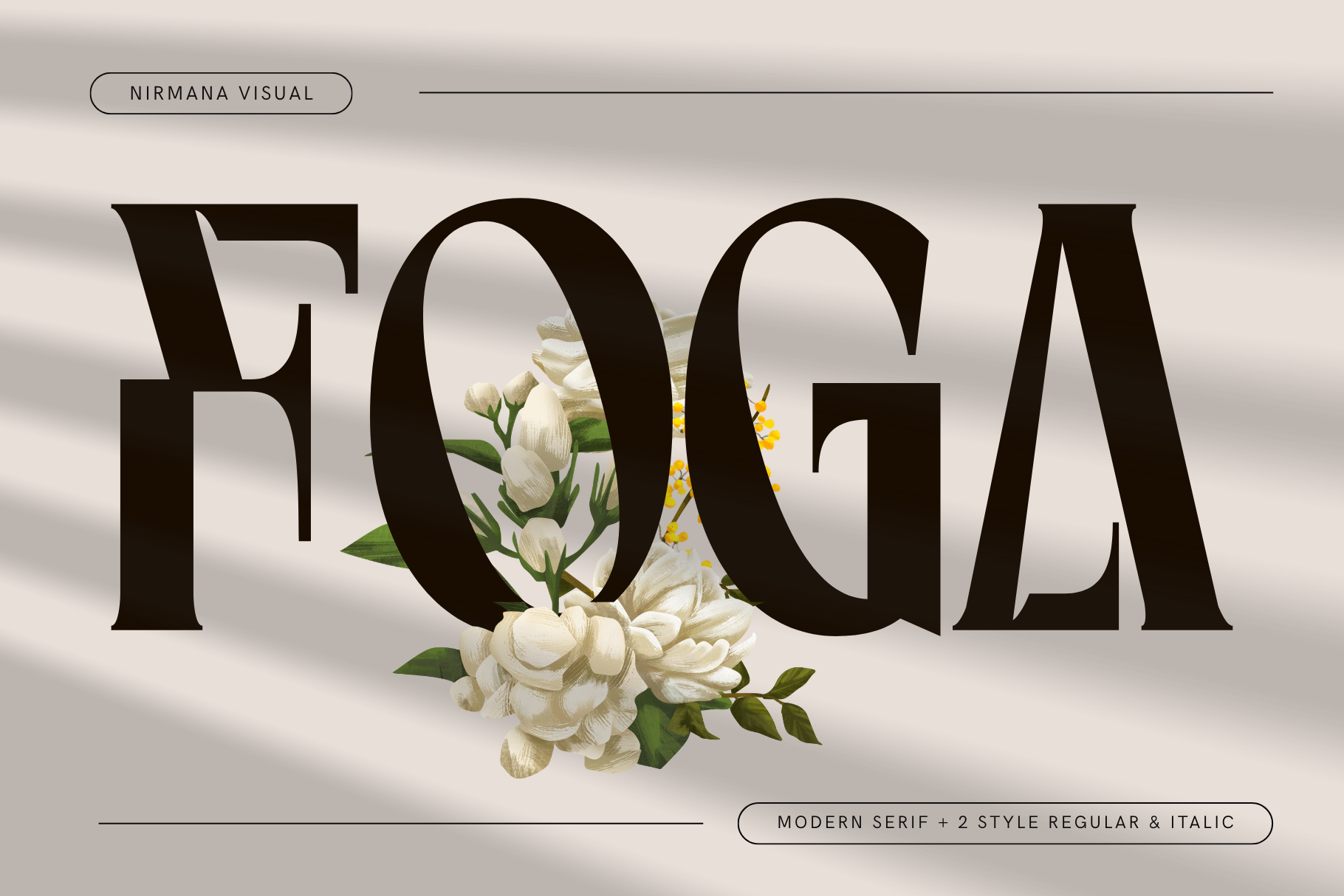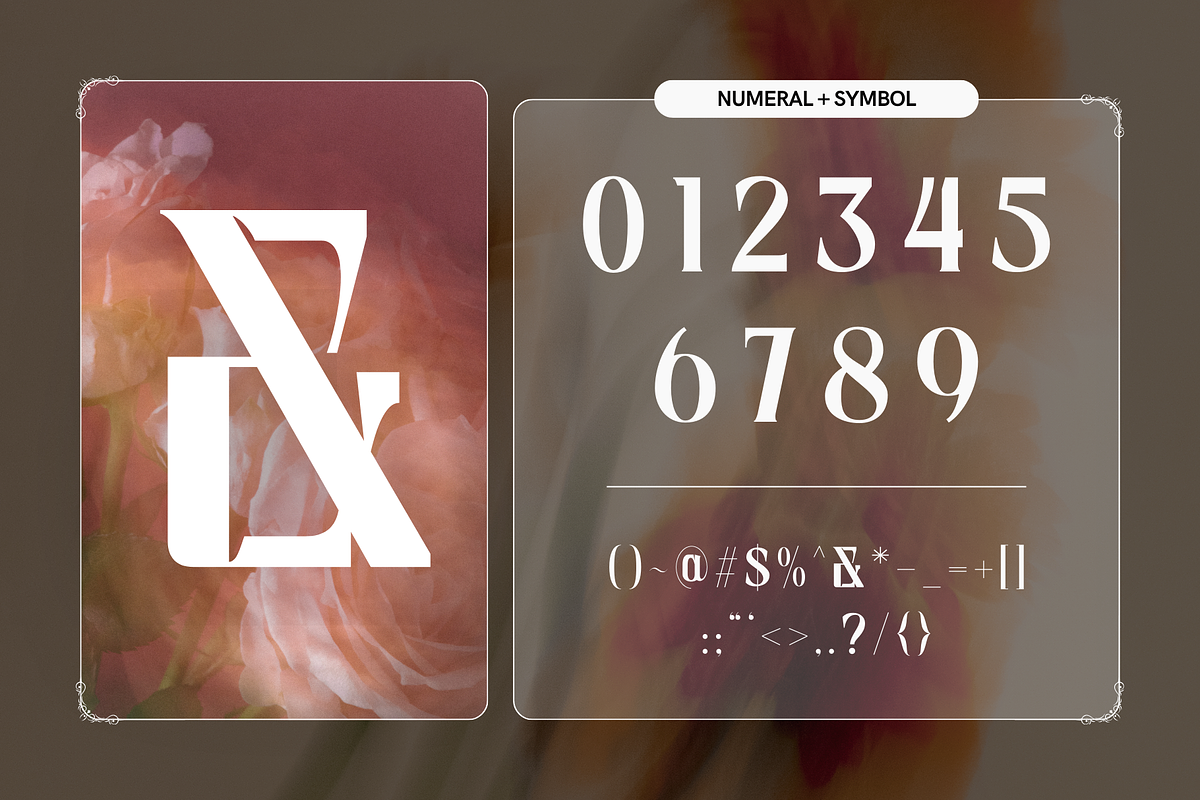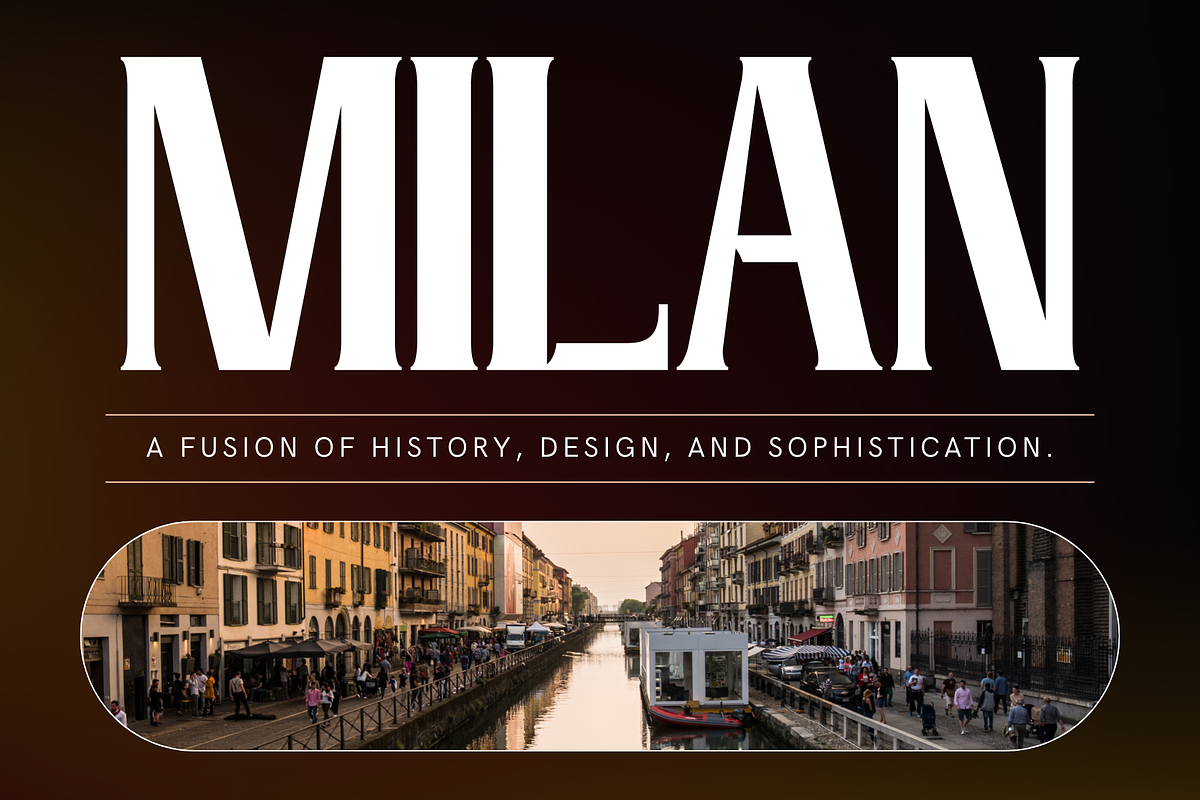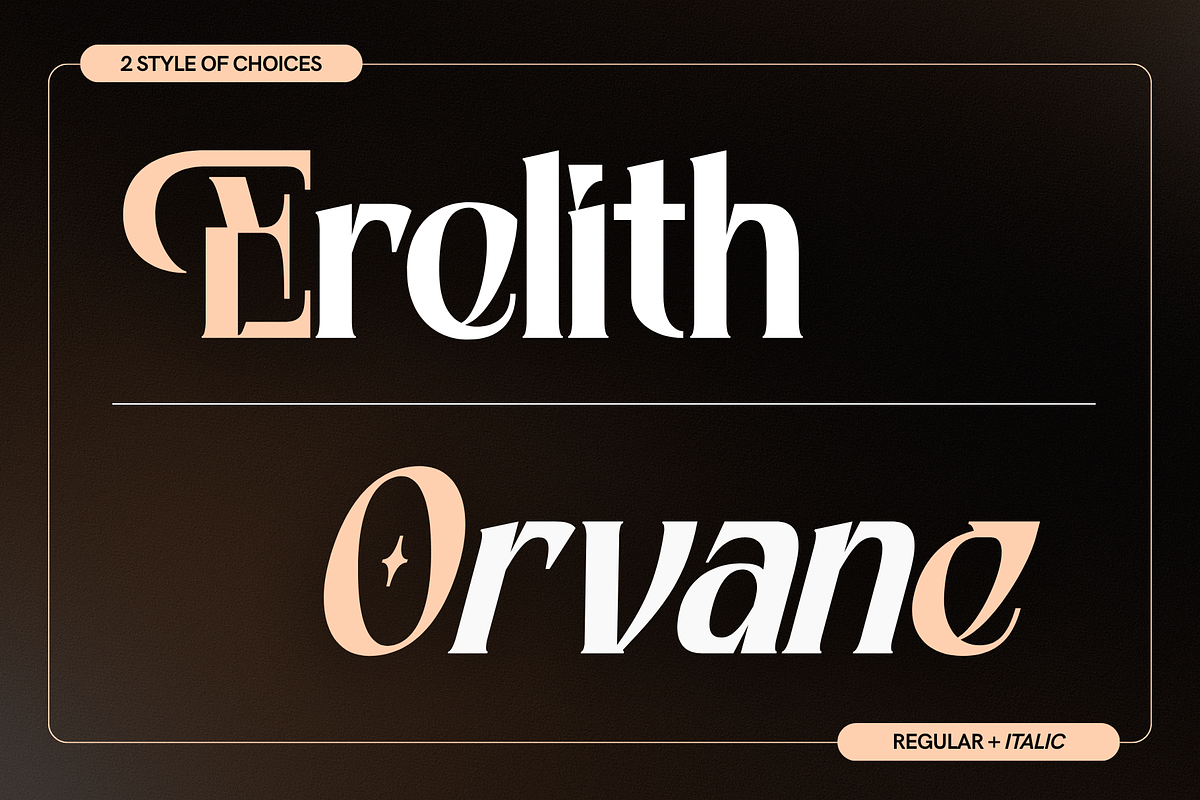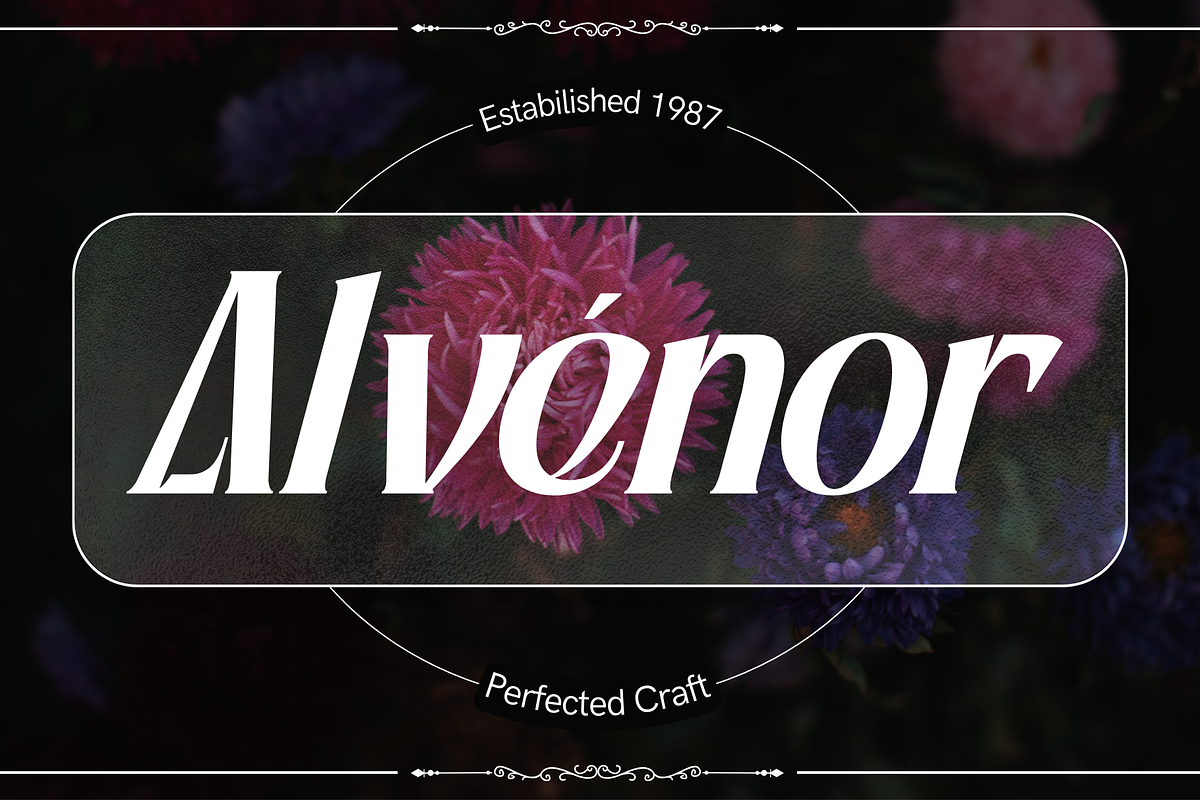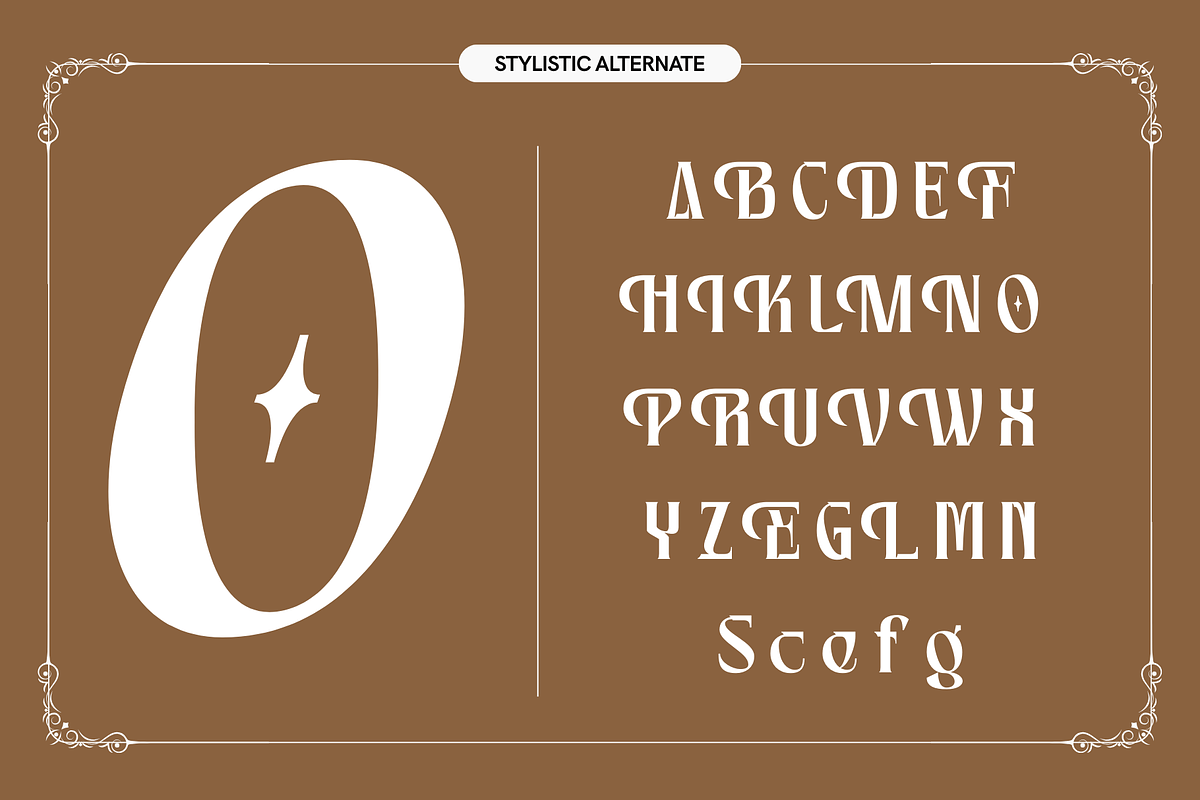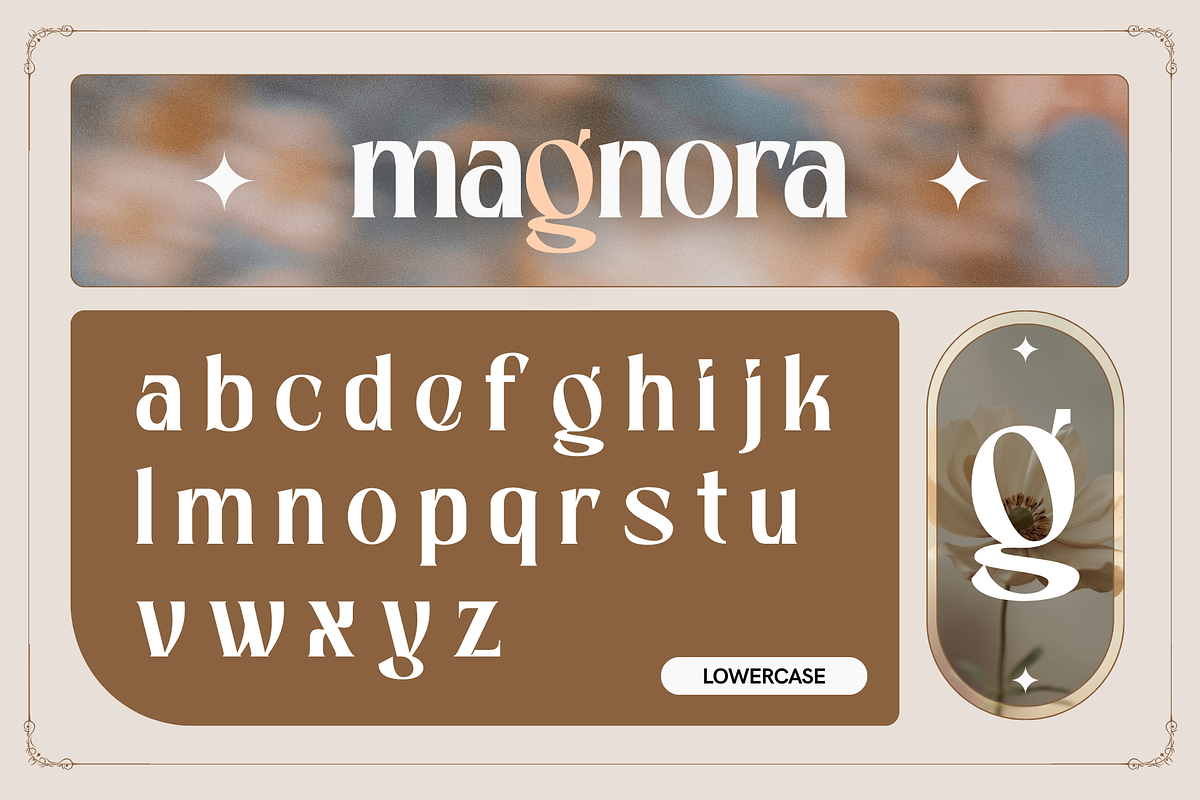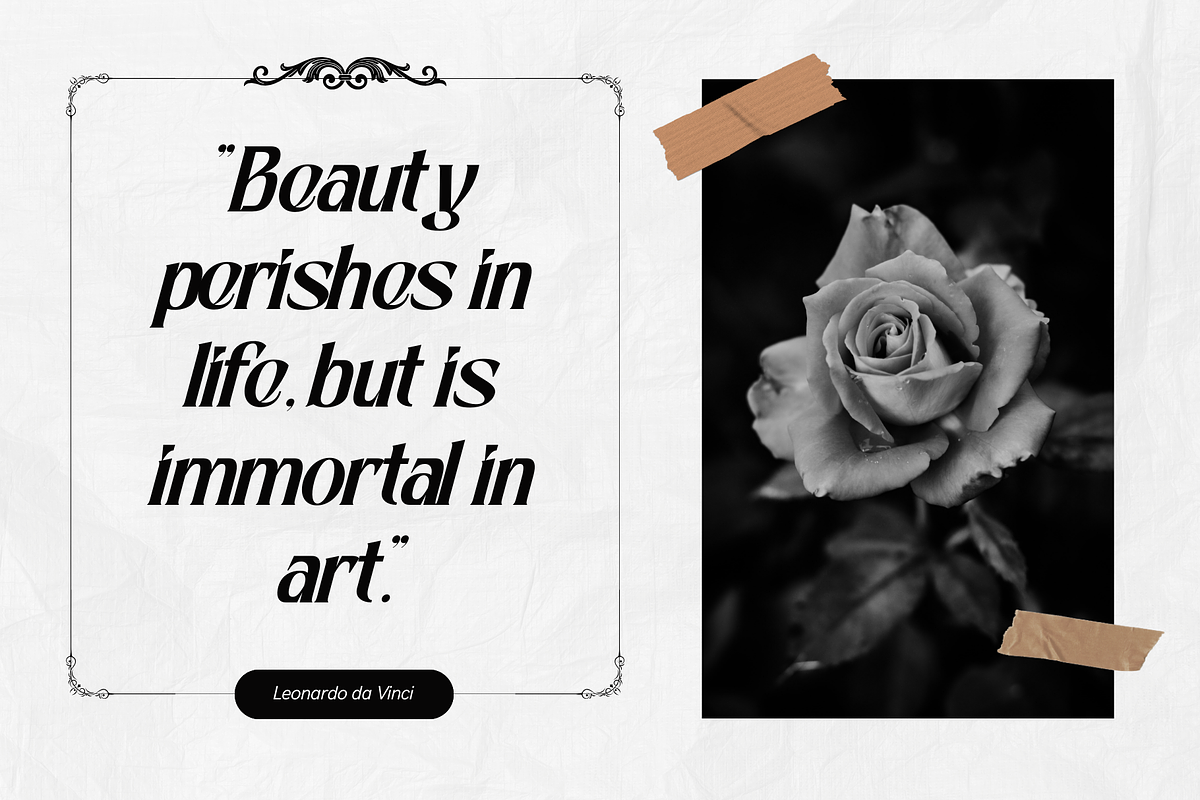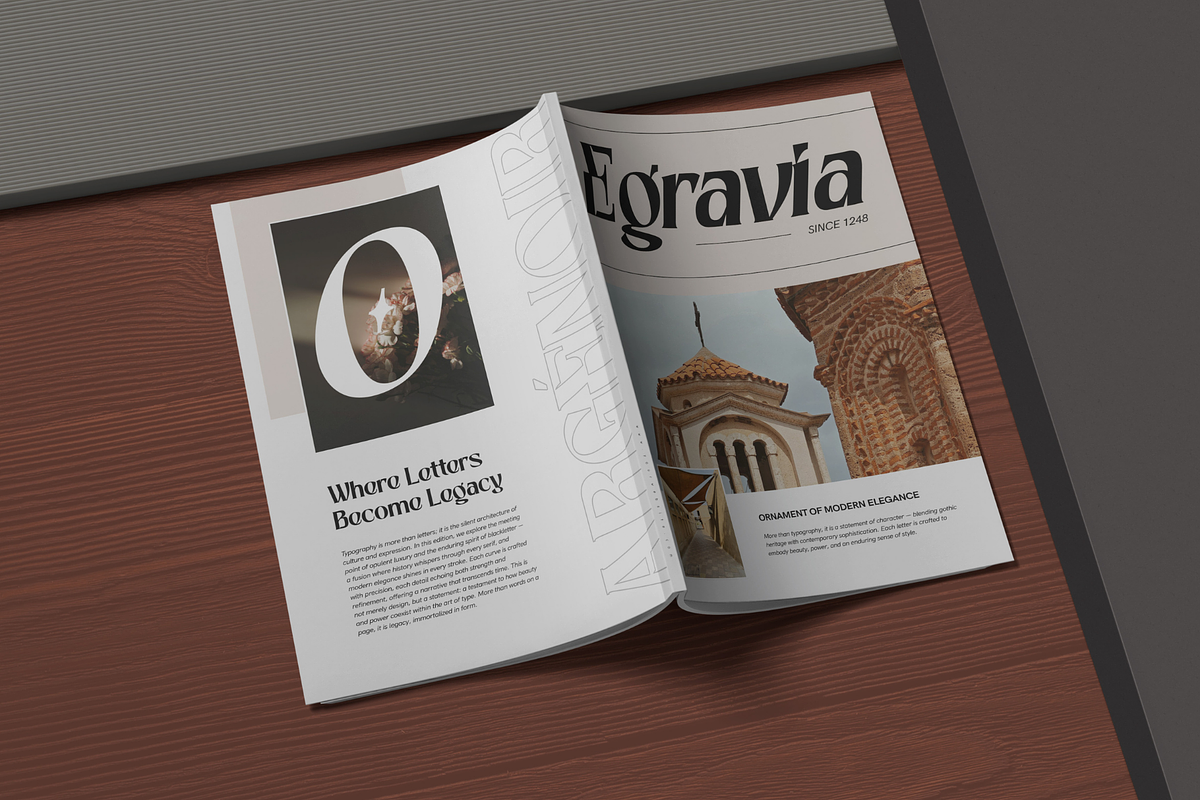
Foga - Modern Serif Logo Font
Foga - Modern Serif Logo Font Foga is a modern serif font designed with elegance and versatility in mind. Available in Regular and Italic, it brings a refined yet contemporary look, perfect for logos, magazines, headings, signage, branding, and more. Its balanced letterforms and timeless details create a professional yet stylish presence, while the italic adds a touch of sophistication. Foga is the ideal choice to make your design projects stand out with class and clarity. What you get : Two Font Styles Regular & Italic - Foga.otf - Foga.ttf - Foga.woff Happy Creating!